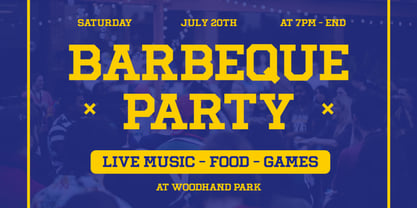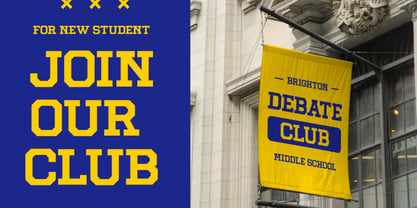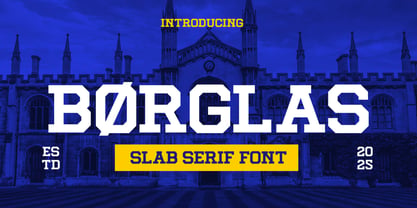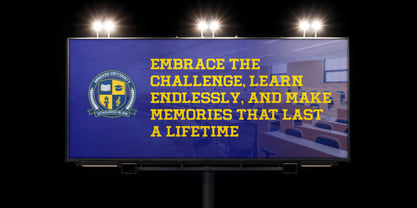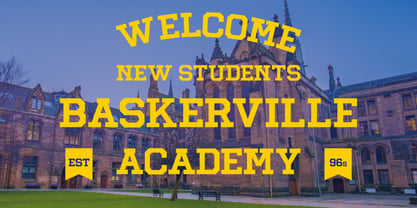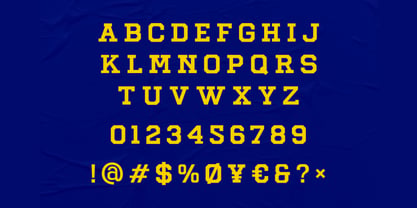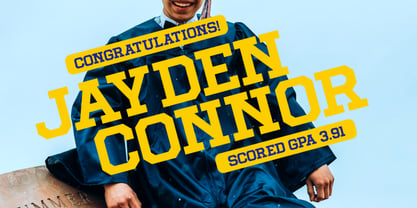
Borglas
Elevate your designs with Borglas Varsity Font, a bold and dynamic varsity typeface that embodies the spirit of competitive sports and academic excellence. Designed with strong geometric forms and sharp edges, it reflects the classic lettering found on university jackets, sports jerseys, and athletic banners. Its structured yet versatile design ensures high readability while maintaining a commanding presence, making it ideal for branding, merchandise, posters, and team logos. Suitable for school posters, sports logo, varsity team, debate club, college branding, academic event, club banner, athletic gear, editorial title, campus design, merchandise print, team signage, student promo, vintage flyer, bold heading, university event, graduation invite, youth campaign, educational magazine, retro design.